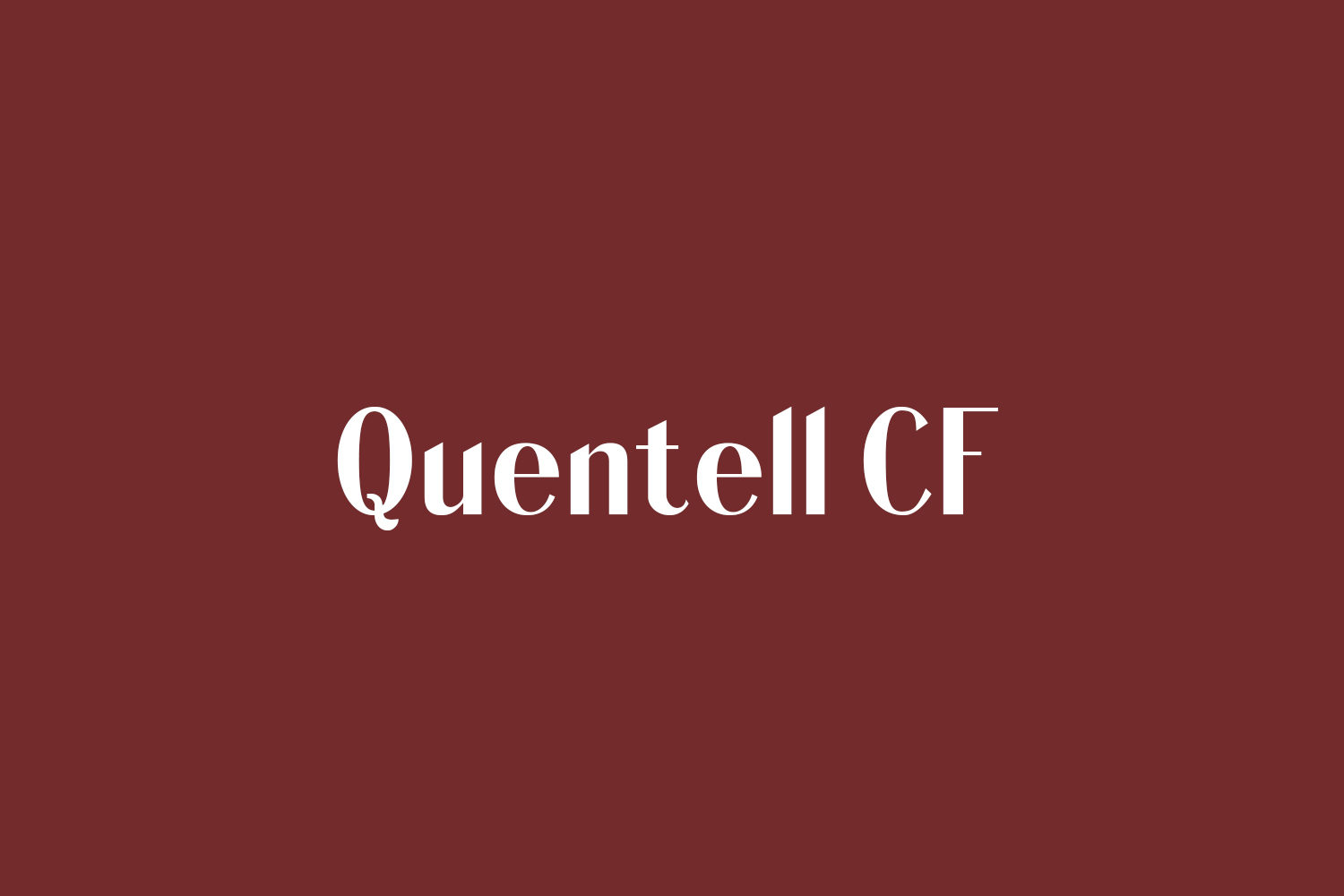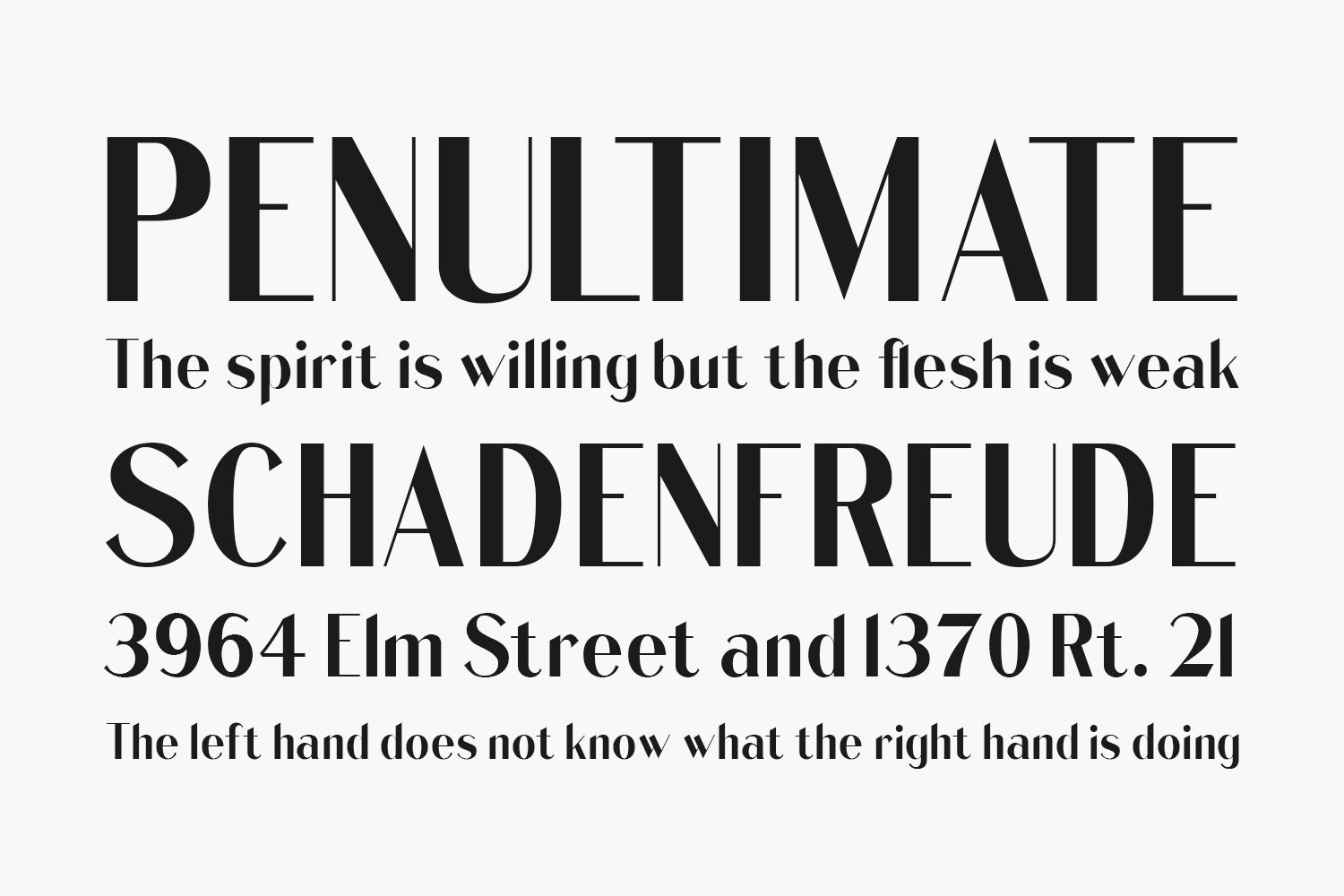
Quentell CF Free Font Family is my revival — completely redrawn — of “QUENTELL,” designed by William P. Quentell in 1895 for the American Type Founders Co. I found it in the American Line Type Book (ATF, 1906). It appears to be in the public domain. The original QUENTELL became the basis of Taylor Gothic (1897). Taylor Gothic was morphed in Globe Gothic by Morris Fuller Benton (1905) for the ATF. A cursory perusal will easily reveal their similarities.
Quentell CF Free Font Family is a bold serif typeface in three weights: Medium, Semibold, and Bold. Because it uses thick and thin stems, it could be used in Art Deco-inspired designs (cf. Ludlow typefaces). QUENTELL would work in “vintage modern” design as well. In short, QUENTELL is at once formal and informal at the same time, making it a flexible tool for everything from advertising to posters to logos. Since QUENTELL was designed as an advertising typeface, I would not recommend it for continuous text; it’s too dark and idiosyncratic.